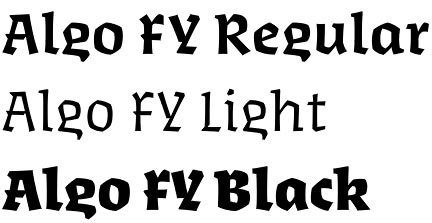
Algo FY font
Algo FY font by Michel Derre (Fontyou type foundry) is a three-weight calligraphic typeface family with a strong visual presence. Its Gothic-like sculptural shapes are both dynamic and steady, primitive and crafted in details, stable and unpredictable. Algo FY offers options both for text setting (Algo FY Light and Algo FY Regular font weights) and for titling and headlines (Algo FY Black).
Each Algo FY font weight shows deliberately and carefully detailed letters. If there exist letters which are even more notable than others, you should have a look on the g with its short final curve or to the Black Q with its beautiful junction of its main part and its tail. Also the dots from i and j are different.
Algo FY font family is a joint creation of Michel Derre & Fontyou Team, the first collaborative type foundry. Michel Derre is graphic and type designer committed to calligraphy and lettering. Fontyou – the first “Collaborative Type Factory” offers original contemporary typefaces with unique design and unquestionably high quality. Check out their Hansom FY font, Janko FY font, Meeko FY font, Canberra FY font, Fixen FY font, Belleville FY font – just a few samples of their immense font collection.